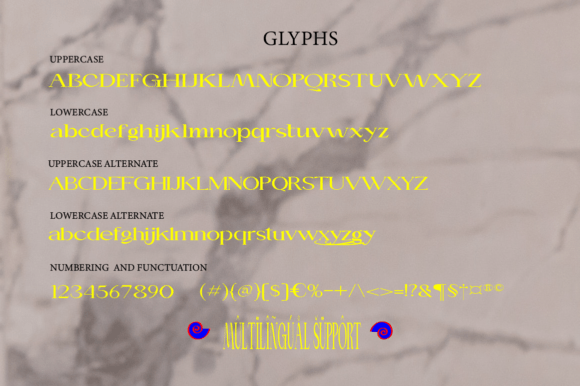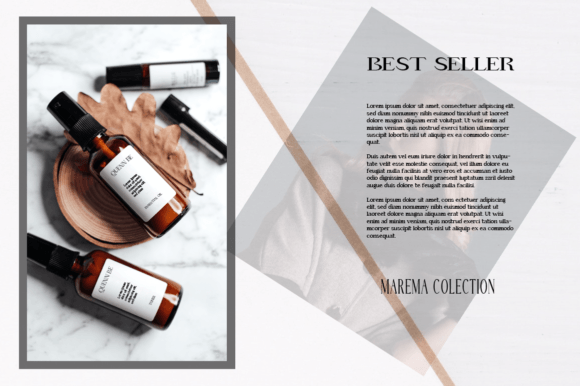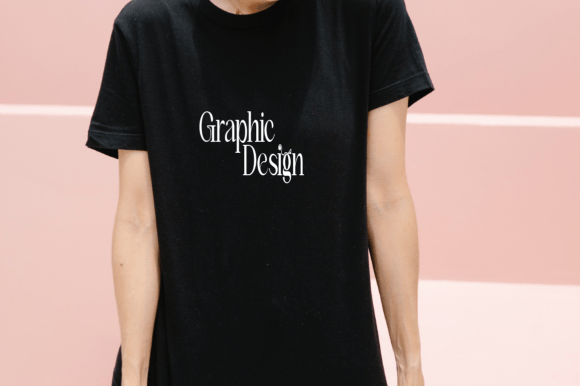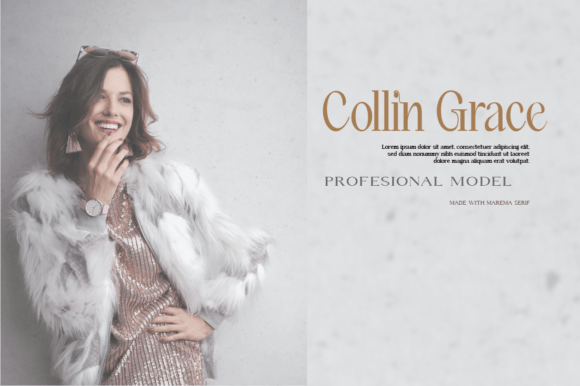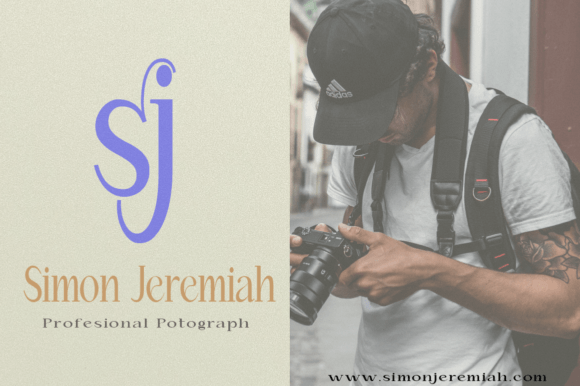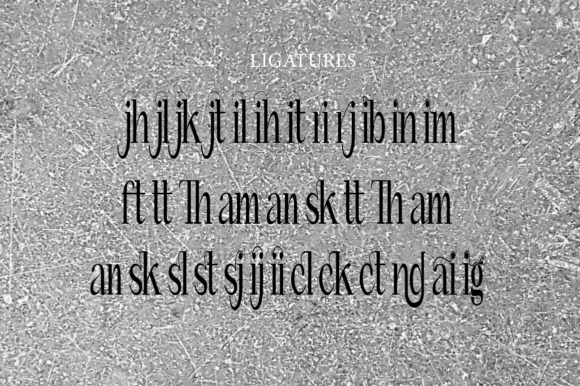
Introduction to Marema Font
Have you ever stared at a blank canvas, feeling the pressure to create something truly unique and captivating? That’s exactly where I was when I stumbled upon the Marema Font. Its elegant and modern design instantly caught my attention, and I knew I had to learn more about it.
As designers, we’re always on the lookout for high-quality design resources that can elevate our creative projects. That’s exactly what the Marema Font offers – a sophisticated and versatile font that can be used for a wide range of applications, from branding and logo design to magazine covers and website headers. With its transparent background and free download option, it’s an invaluable addition to any designer’s toolkit.
Key Features of Marema Font
- High-quality design: Marema Font is a beautifully crafted font that can elevate any creative project.
- Transparent background: The font’s transparent background allows for easy customization and versatility in design projects.
- High-resolution design: The font is designed at a high resolution (300 DPI), making it suitable for print and digital applications.
- Unique characteristics: Marema Font features a unique blend of modern and elegant styles, making it perfect for a wide range of creative projects.
Honest Review: Marema Font
I recently had the chance to work with the Marema Font, and I must say it’s been a game-changer for my design projects. This free download has been a valuable addition to my design resource library.
- The Marema Font features a unique, elegant design that adds a touch of sophistication to any creative project.
- The high-quality typography ensures that the font remains crisp and clear, even when enlarged or used for intricate designs.
- The transparent background allows for seamless integration with other design elements, making it perfect for multi-layered designs.
- The Marema Font is a relatively new release, and while it’s already impressive, it may not have the same level of polish as some more established fonts.
- The font family is relatively small, which may limit its versatility for some design projects.
Overall, I’m thoroughly impressed with the Marema Font. Its unique design, high-quality typography, and transparent background make it a valuable addition to any design library. While it may have some limitations, I believe it’s definitely worth checking out for your next creative project.
Marema Font
Marema Font is a high-quality, transparent background font that can be used for various creative projects, such as:
1. Social media graphics
2. Business cards
3. Posters
4. Branding materials
Tips for Getting the Most Out of Marema Font
For optimal results, use Marema Font on a transparent background to create a sleek and modern look. You can also experiment with different font sizes and colors to add visual interest to your design.
Alternatives to Marema Font
Marema Font is a versatile design resource ideal for creative projects requiring high-quality, transparent background fonts. However, if you’re looking for alternative fonts to suit your design needs, consider the following options.
The Great Vibes Font is a beautiful, high-quality script font perfect for creative projects that need a touch of elegance. It’s ideal for use on wedding invitations, branding materials, and other design elements that require a sophisticated look. Great Vibes Font is a great alternative to Marema Font for projects that need a more refined, handwritten feel.
Q: Does Marema Font have a transparent background?
Yes, Marema Font features a transparent background, making it ideal for use on various backgrounds and design elements. This allows for seamless integration with your creative project, ensuring a high-quality and professional finish.